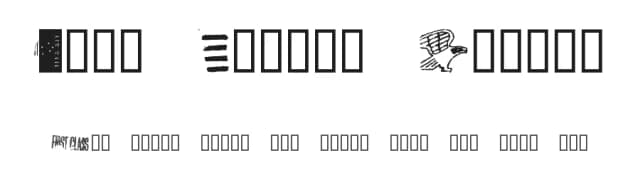
About Formation Font
Formation Font is a decorative font that shines as a display or heading face. Pair it with a clean sans-serif or serif font for body text β the contrast creates a clear hierarchy while the two styles stay balanced and easy to read.
Formation Font
by ChannelZero
Formation Font is a decorative typeface by ChannelZero, ideal for logos, invitations, branding, and creative projects.